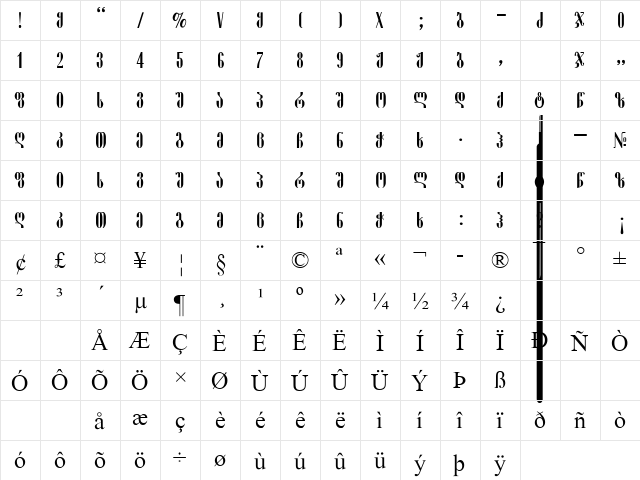
Pakizi TD Regular
Design Context for Pakizi TD Typeface
Pakizi TD takes a measured approach to typography — its balanced proportions and neutral character make it a reliable workhorse for both digital and print work.